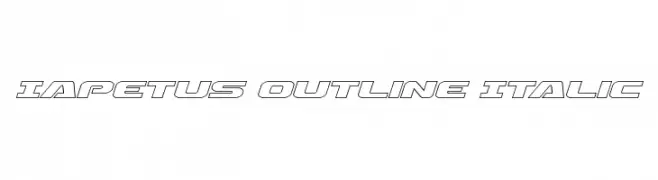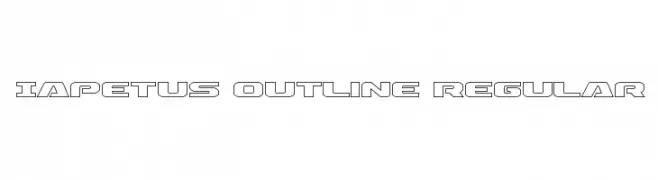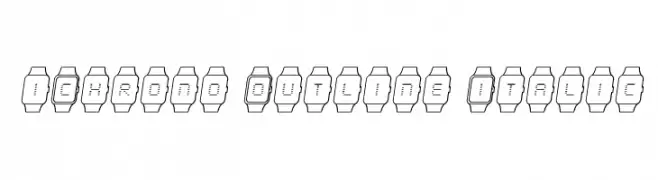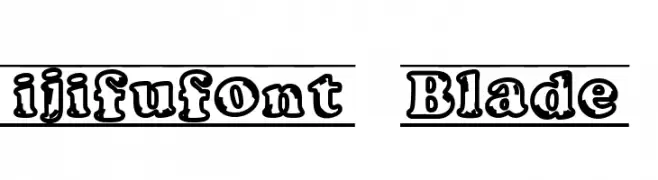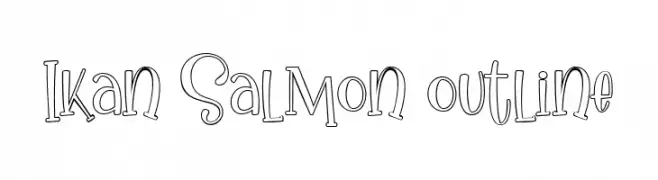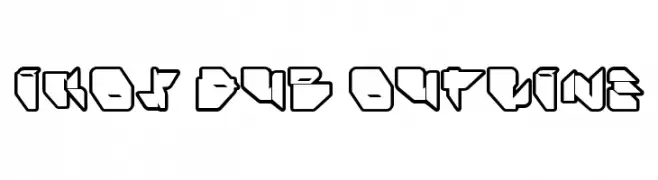
A modern, italic outline font with a futuristic and dynamic style.
A bold, geometric outline font with a futuristic and modern style.
A digital, watch-themed font with segmented characters in outlined displays.
A modern, tech-inspired font with characters in digital watch outlines, featuring an italic style.
A playful, hand-drawn outline font with a whimsical and casual style.
A bold, geometric outline font with a futuristic and edgy style.
A bold, geometric outline font with a modern, futuristic style.
A bold, geometric outline font with an italic slant, offering a futuristic and dynamic style.